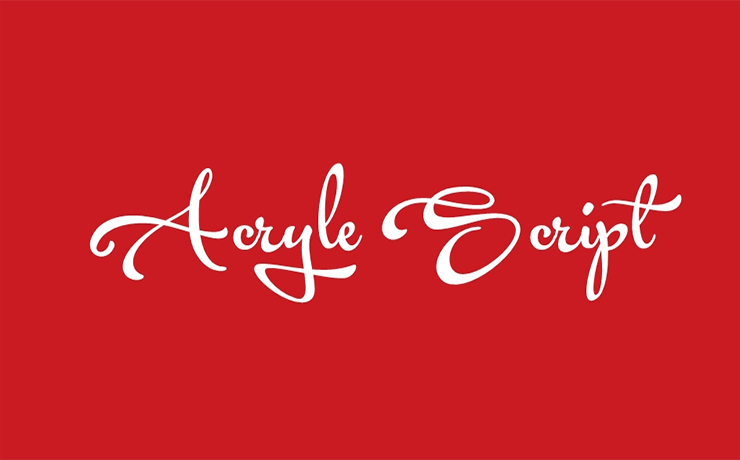
Acryle Script Font is a stunning script calligraphy typeface style. His stylish and elegant handwriting results in a remarkable calligraphic font that looks great when letters are combined with one another.
Acryle Script was designed by Måns Grebäck and published by Mans Greback.
This is because of the cursive layout and the thin and heavy strokes that make it one of the most impressive typefaces, which works well with the effect font styling.
If you take a closer look at the style of this typeface, the characters of this typeface have rounded corners that look like starfish arms.
Try it out for book covers, unique emblems, game titles, printing on cards, brand logos, special quotes, t-shirt printing, invitation cards, professional purpose, flyers, posters, and wherever you want to highlight the design.
Acryle Script Font comprises in single regular weight along with True Type features.